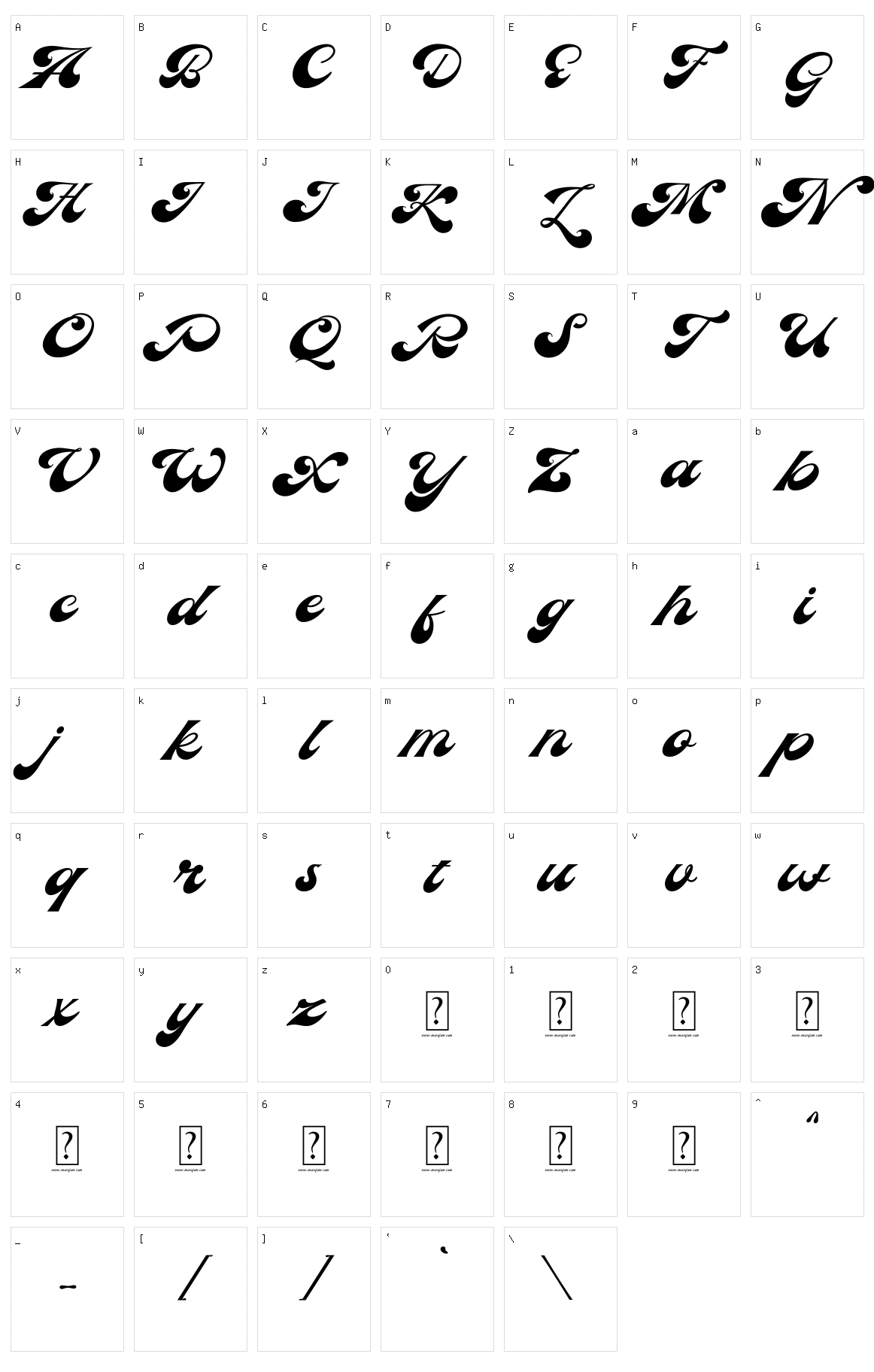
The free font The Candy and Boy is carefully designed by www.movefont .com, showcasing a thoughtful balance of creativity and usability and falls under the Old-School font style. When you download the ZIP file, it contains only 3022.55 KB of font files, making it lightweight and quick to download. Please review the license details below to understand permitted usage and distribution rights. If license information is not available, we recommend using this font for personal projects only or contacting the author directly for commercial usage permissions.